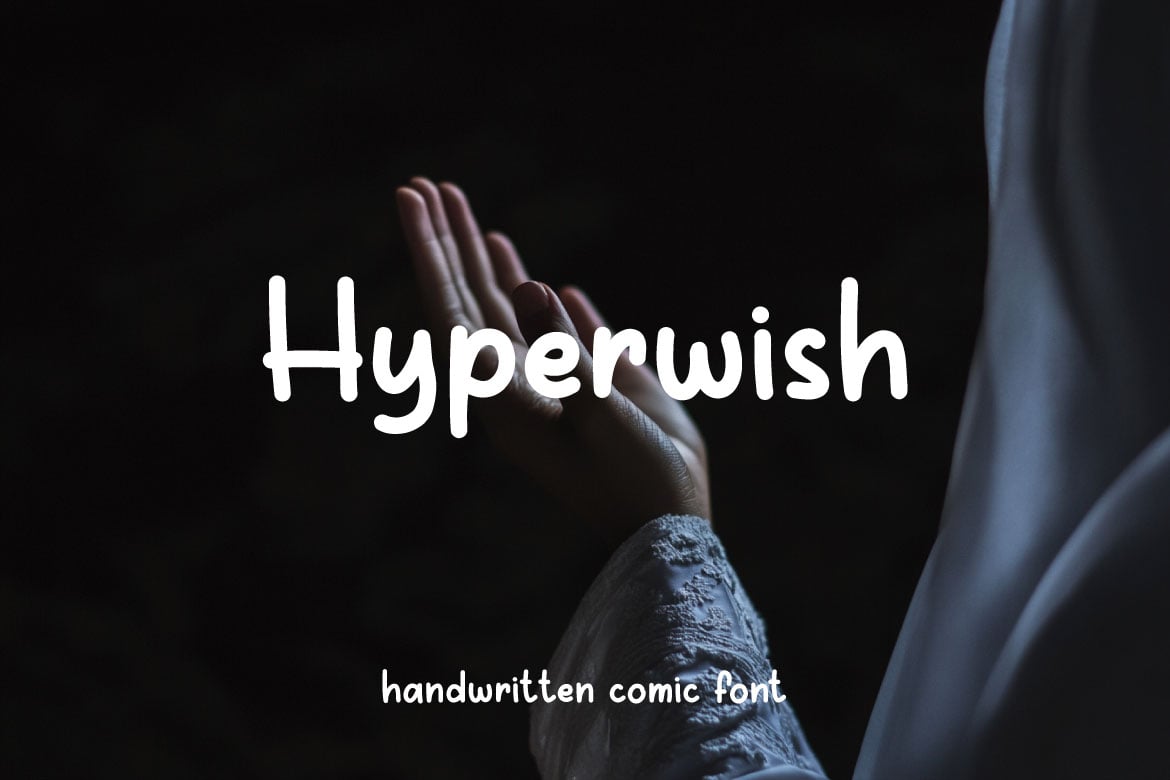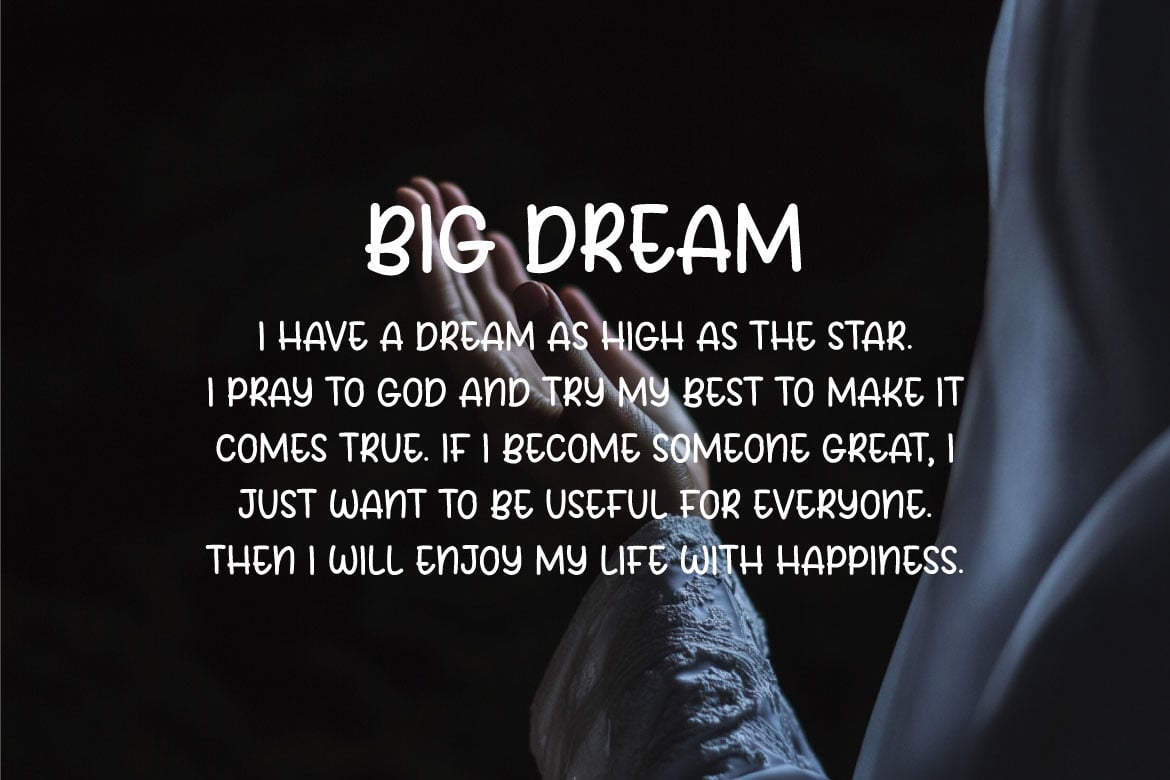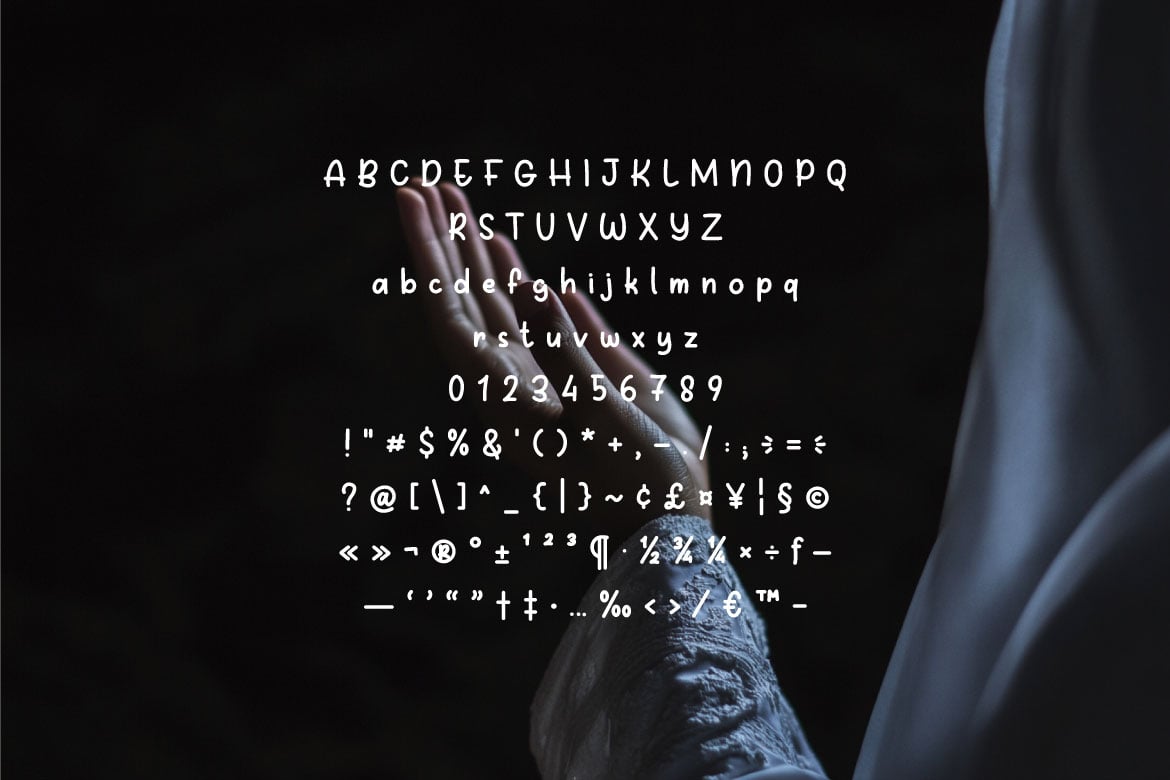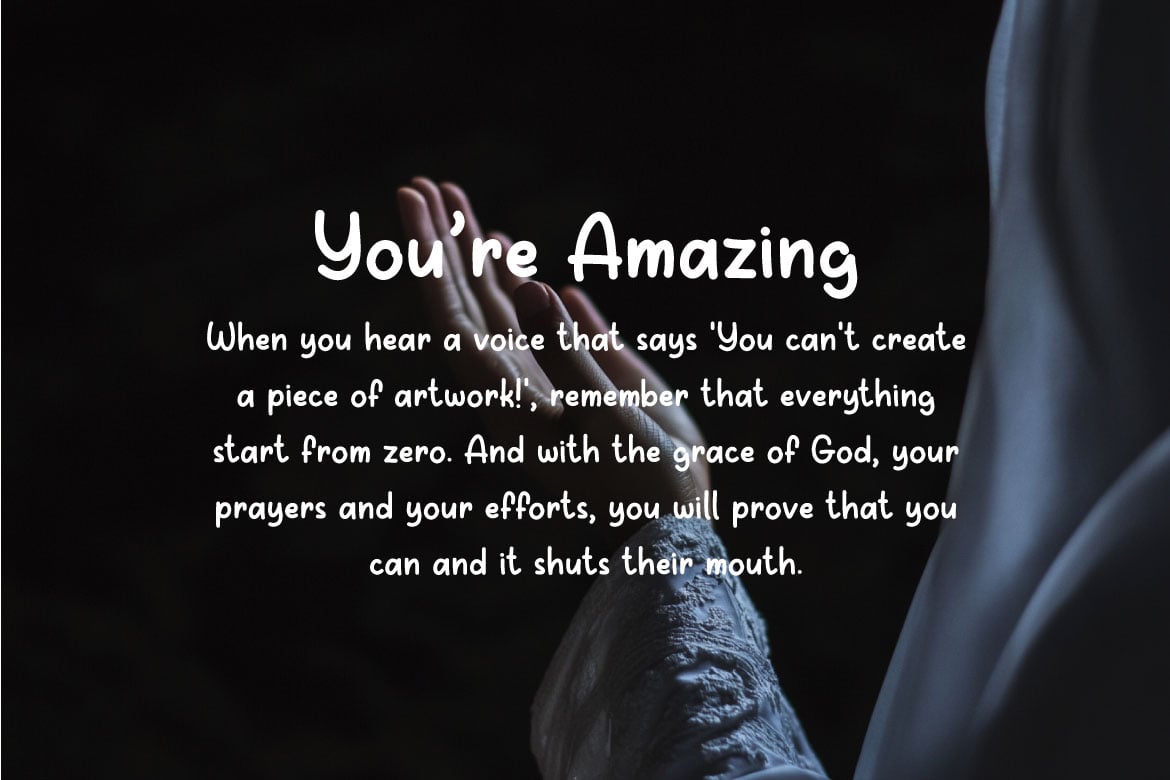
Hyperwish – Comic Font
Introducing Hyperwish, a playful and whimsical comic-style font designed to bring a fun and lighthearted feel to your projects. With its smooth curves, bold lines, and charming character shapes, Hyperwish is perfect for a variety of creative uses such as children’s books, comic illustrations, playful branding, product packaging, and more!
The unique and cute appearance of Hyperwish adds a touch of personality and joy to any design, making it a great choice for projects that need a fun and approachable vibe. It’s easy to read and pairs well with other fonts, making your design process even more seamless.
Unleash your creativity with Hyperwish and make your projects stand out with its charming, cute, and comic-inspired look!